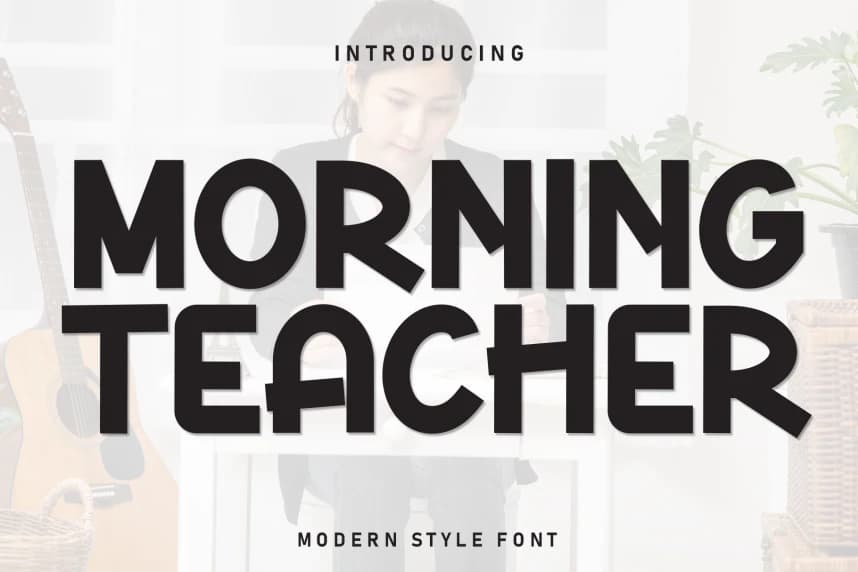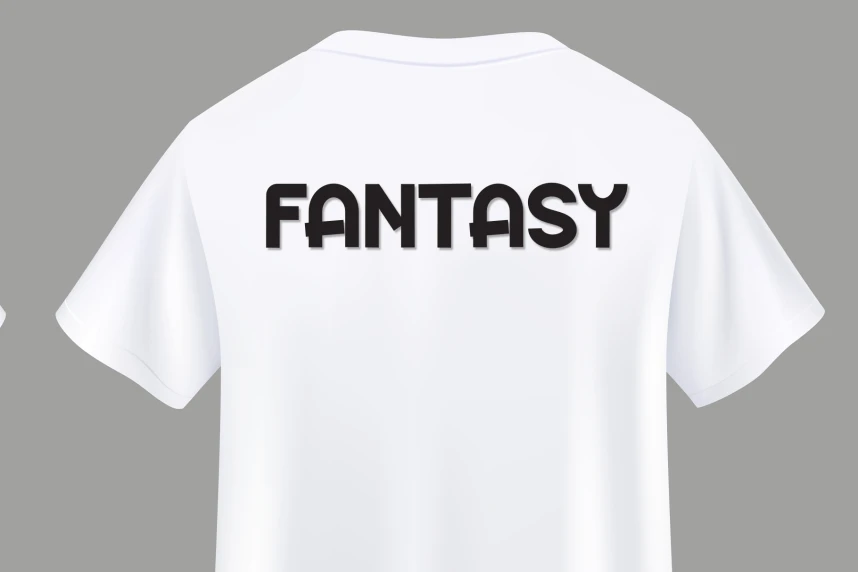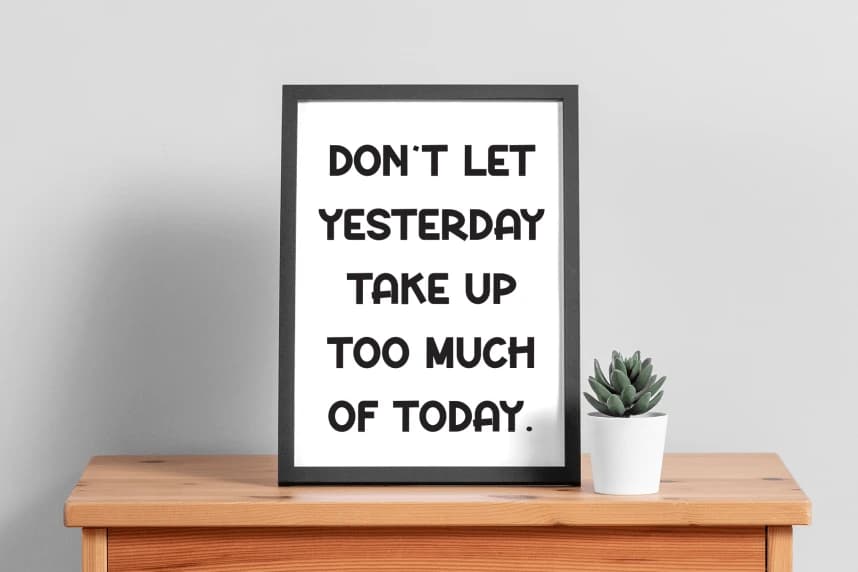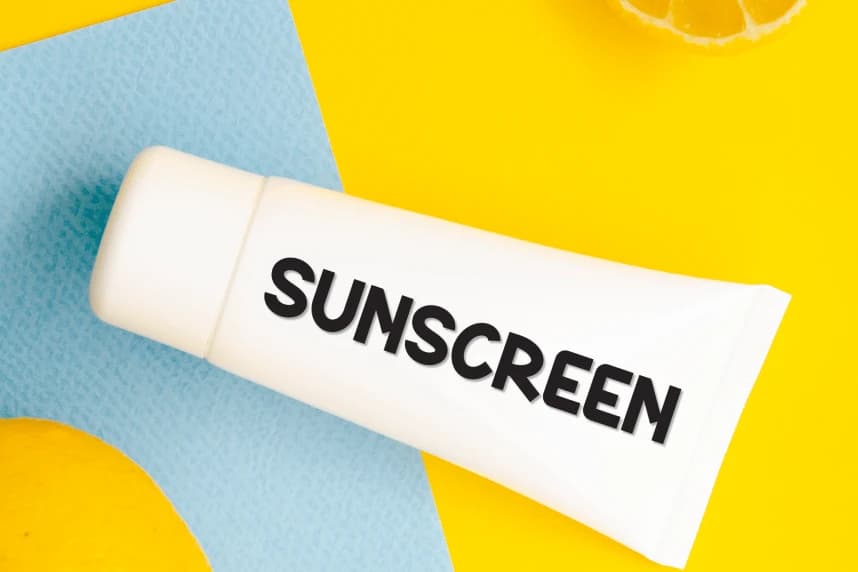
Morning Teacher Playful Font
Morning Teacher Playful Font is a sweet and friendly handwritten display font. Cute and fun, this font is ideal for writing wedding invitations, cards, or any other design that might need a playful touch!